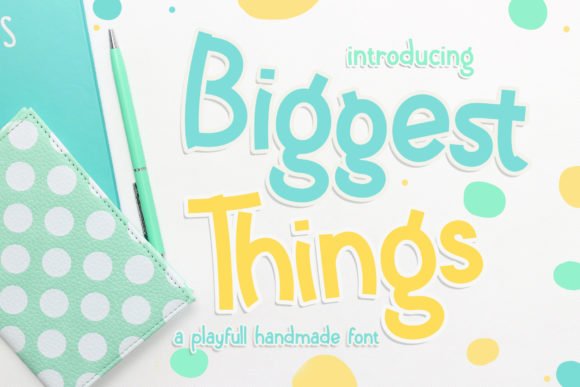
When Creativity Strikes
We’ve all been there – brainstorming a brilliant idea for a project, only to be held back by the limitations of our current tools. Whether you’re a seasoned designer or a crafty hobbyist, there’s something special about bringing an idea to life. But what if you could take that spark and turn it into a true masterpiece?
That’s where the Biggest Things Font comes in – a unique handwritten font that’s equal parts playful and sophisticated. With its quirky charm, Biggest Things Font is the perfect partner for turning your crafting ideas into showstoppers. Whether you’re creating digital designs, hand-lettering, or crafting custom signs, this font is sure to add a personal touch that sets your project apart.
As a designer, you know how much a great font can elevate a project. Biggest Things Font is a valuable addition to any toolkit, offering a fresh and creative way to express yourself and connect with your audience.
Key Features of Biggest Things Font
- Unique Characteristics: Biggest Things Font features an exaggerated, playful style with exaggerated letterforms and bold lines, making it perfect for creating eye-catching headlines and titles.
- Font Weight and Style: The font family includes multiple weights, from Light to Ultra Black, offering a range of options for creating contrast and visual interest in designs.
Biggest Things Font Review
Biggest Things Font is an interesting addition to the font family. I have to admit, I was drawn in by its unique look and style. ✨ The bold and playful aesthetic it brings to designs is quite captivating. It’s perfect for projects that require a fun and energetic vibe.
- Unique and bold design
- Perfect for playful and energetic designs
- Comes in a variety of font weights
- Supports various languages
However, I do have some concerns. ✠ The font’s limitations become apparent when it’s used for more formal or professional projects. The design can come across as too playful or immature for these types of designs. Additionally, the font’s spacing and kerning can be a bit off at times, which can affect readability.
- Not suitable for formal or professional designs
- Spacing and kerning can be inconsistent
- May require additional tweaking for optimal performance
Overall, Biggest Things Font is a great choice for projects that need a fun and energetic touch. While it may not be the best fit for every design, it’s definitely worth considering for the right project.
The Biggest Things Font is ideal for creating eye-catching headlines, titles, and announcements. Use it to grab attention and make a statement. Some common use cases include:
- Marketing materials and advertising campaigns.
- Event promotions and invitations.
- Social media posts and graphics.